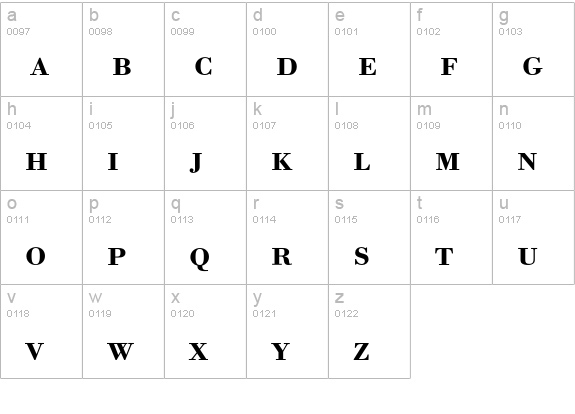
BodoniSCEF-DemiBold Font Details
BodoniSCEF-DemiBold is a sub-bold, structured variant in the BodoniSCEF typeface family \xE2\x80\x94 well suited to sub-headlines and emphasised passages.
BodoniSCEF-DemiBold font exudes elegance and sophistication with its bold and distinctive design. This font is perfect for creating eye-catching headlines, logos, and branding materials that demand attention. The strong and confident letterforms of BodoniSCEF-DemiBold make it a versatile choice for both print and digital projects. The best part is, BodoniSCEF-DemiBold font is available for free download at FontsMarket.com. You can easily access this high-quality font and elevate your designs without any cost. Don't miss out on this amazing opportunity to add BodoniSCEF-DemiBold to your font collection and enhance your creative projects with its striking presence.